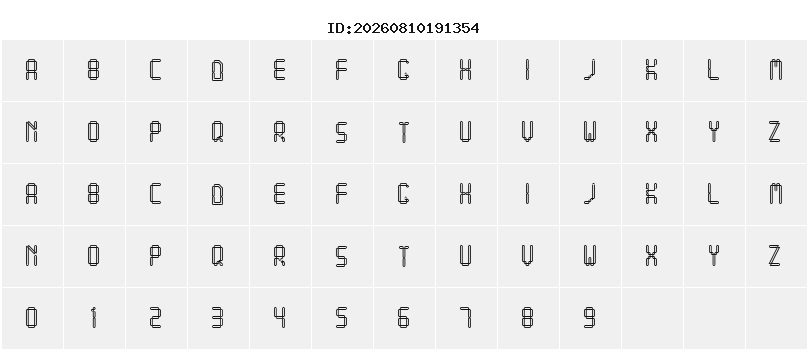
• Font Name: Quadratum
• Full Font Name: Quadratum
• Manufacturer: Sehli
About Quadratum.ttf
Quadratum.ttf is a modern, elegant sans-serif font designed for ultimate readability and visual harmony. Perfect for branding, headlines, web design, and print materials.